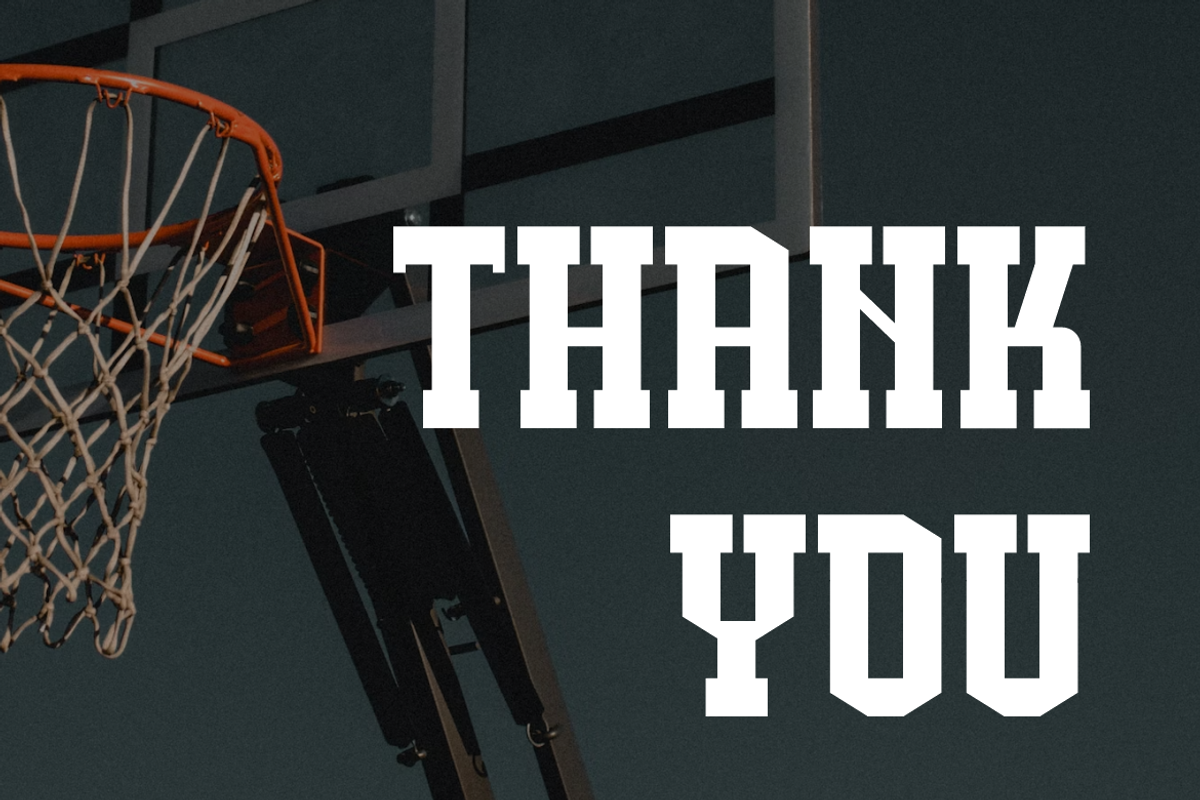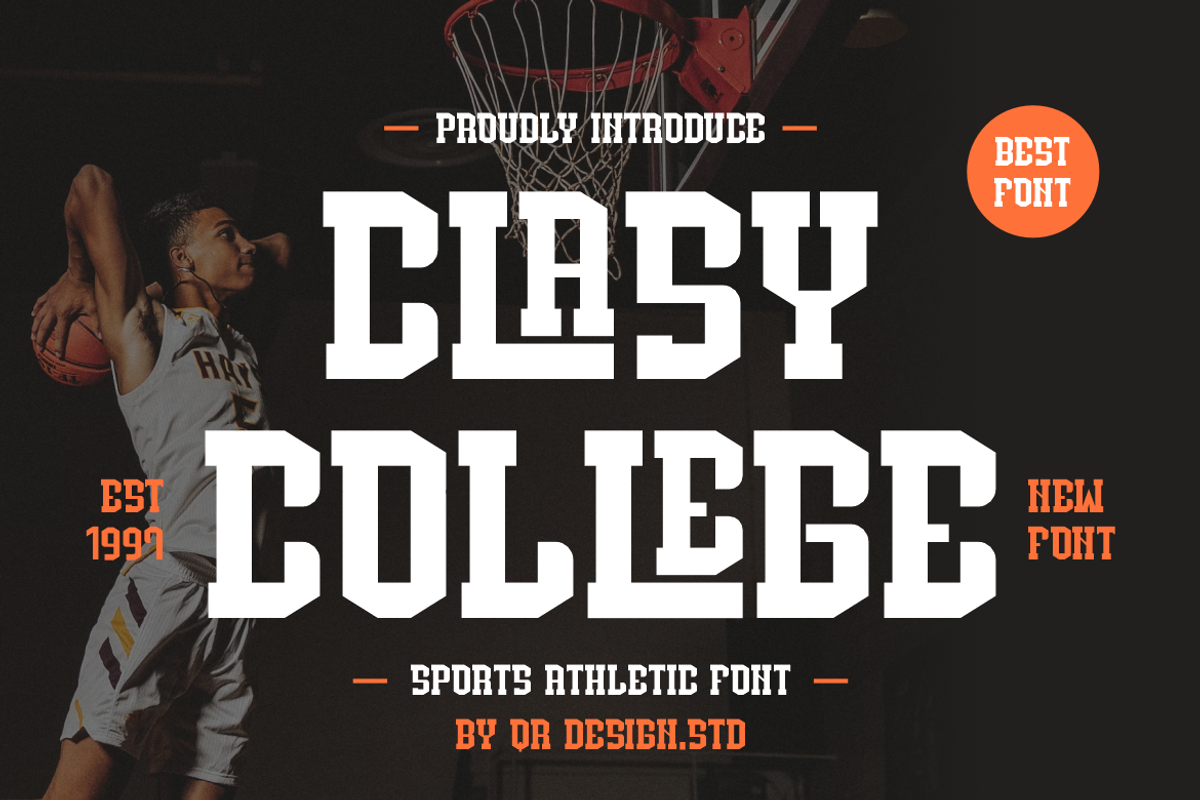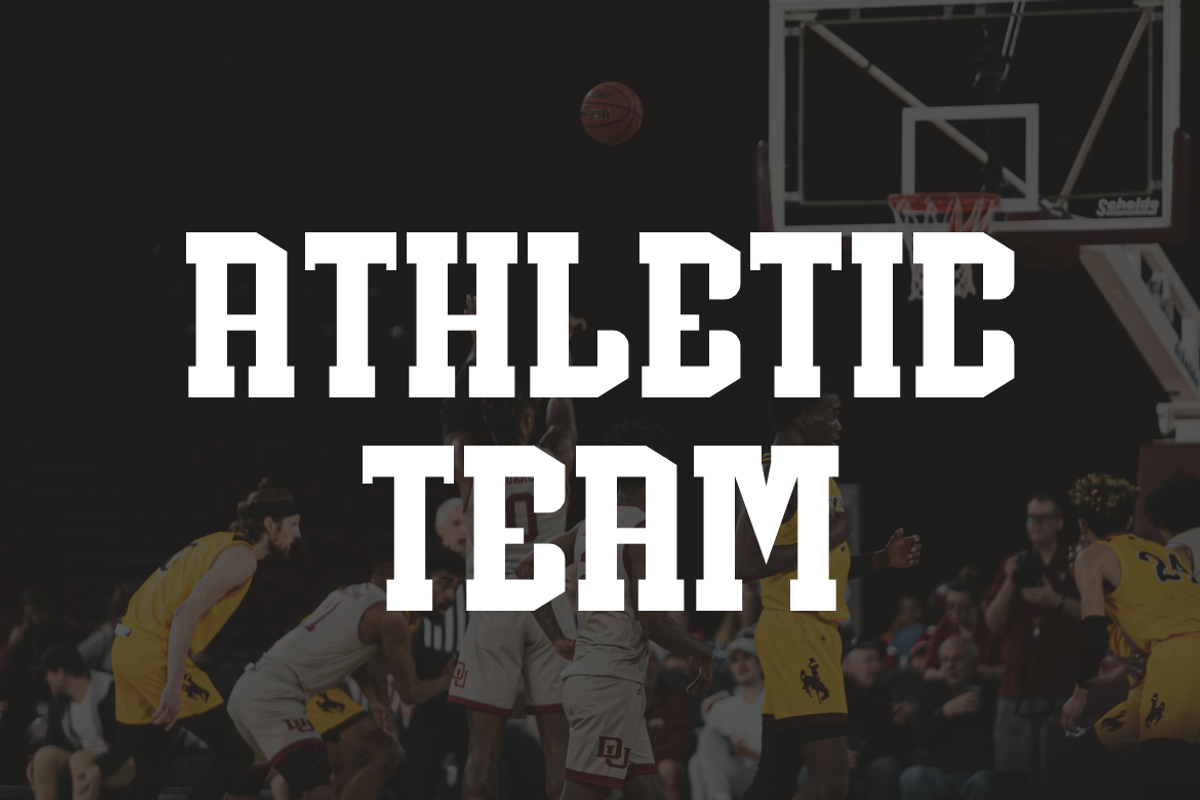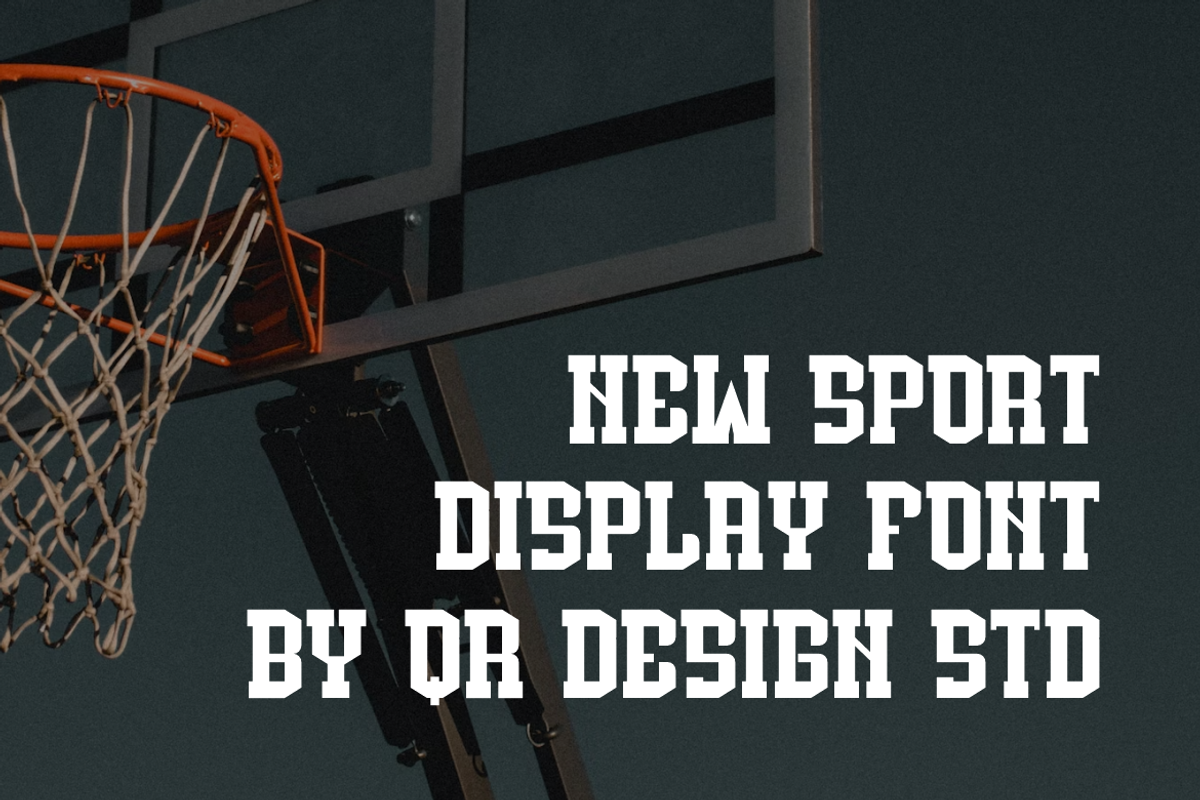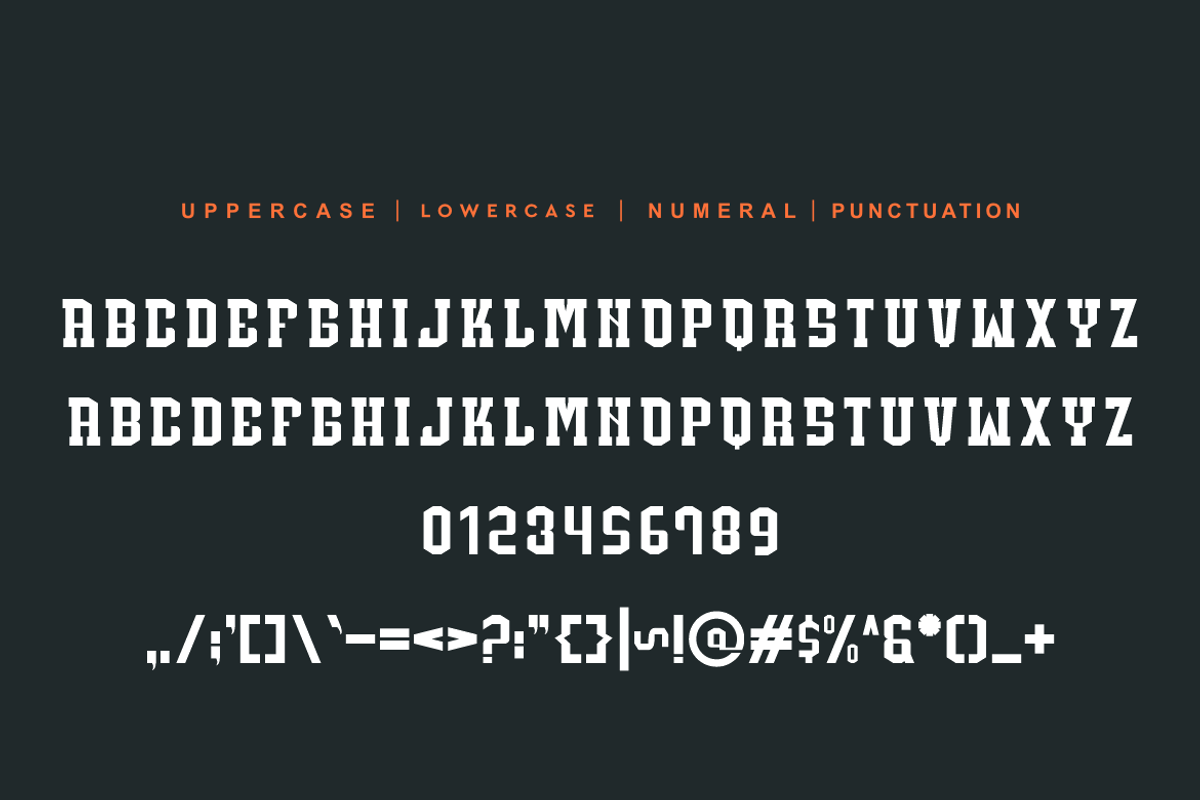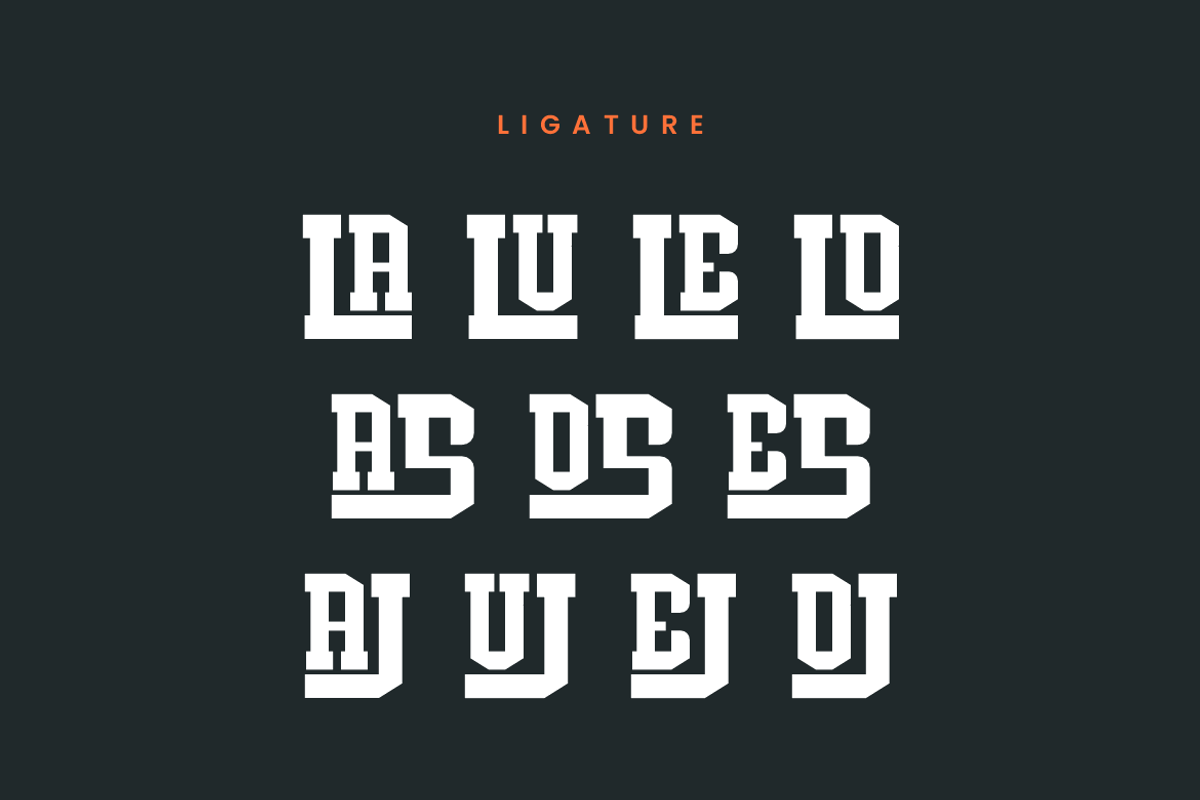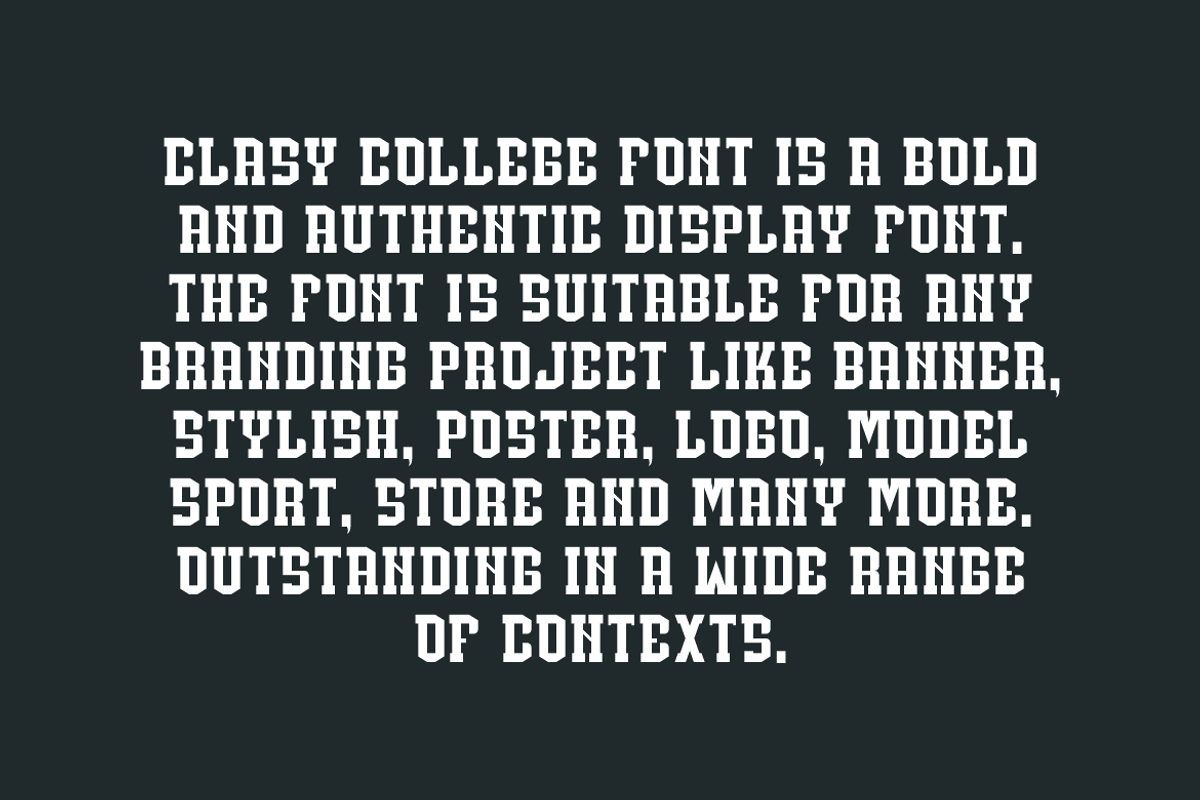
Clasy College - Sports Font
Clasy College - Sports Font is a bold and authentic display font. The font is suitable for any branding project like poster, logo, sport, and many more. Outstanding in a wide range of contexts.